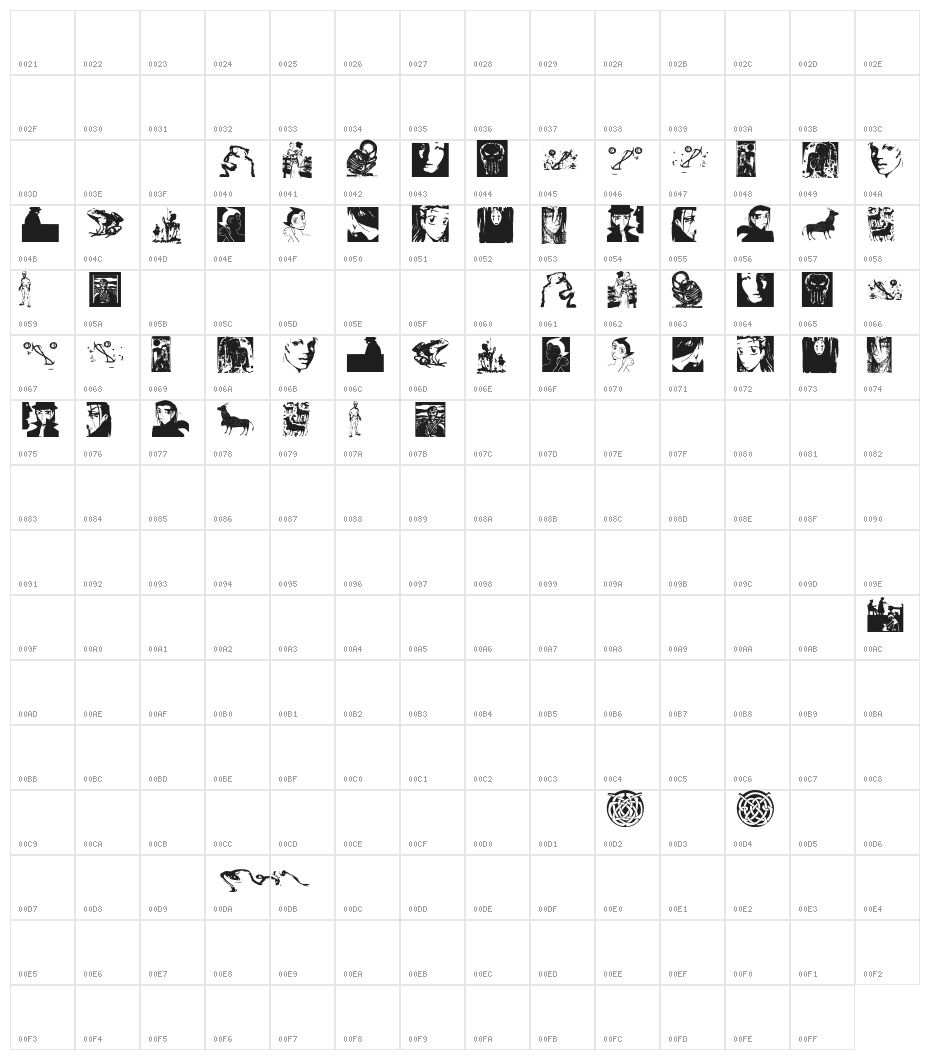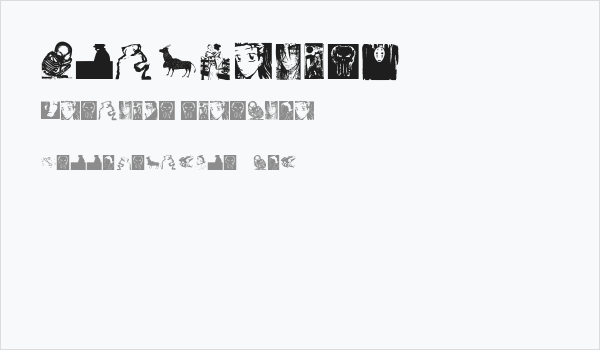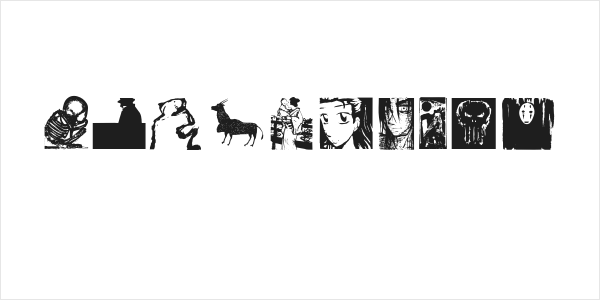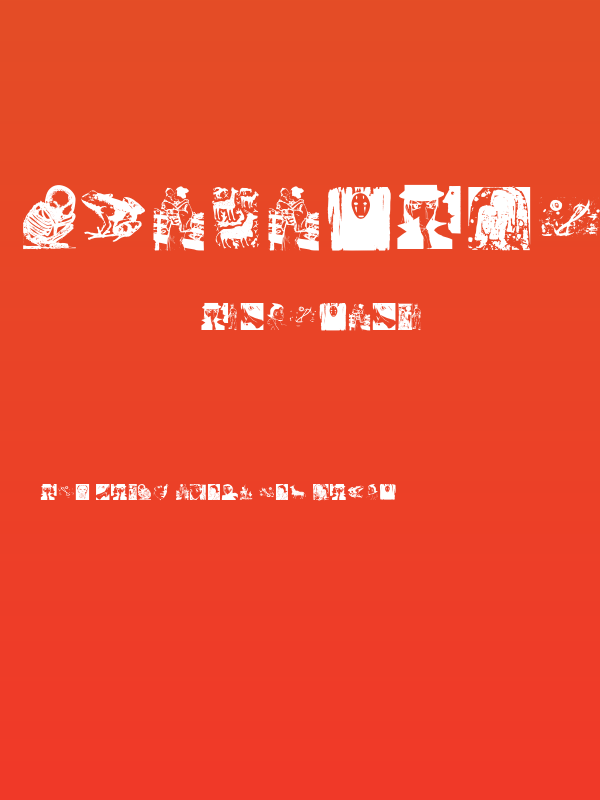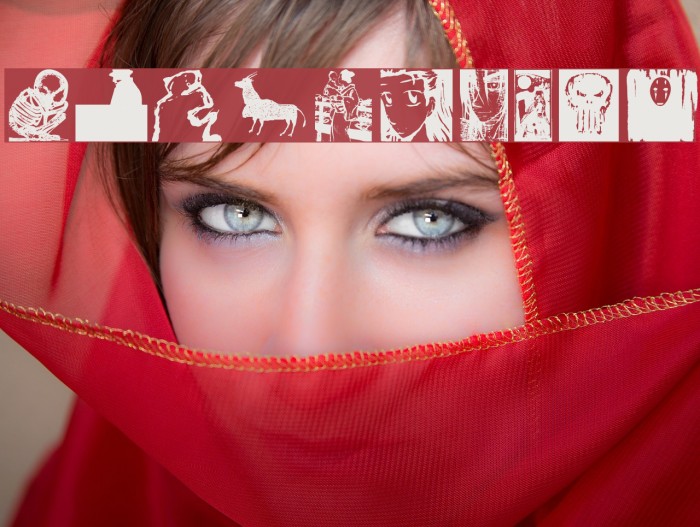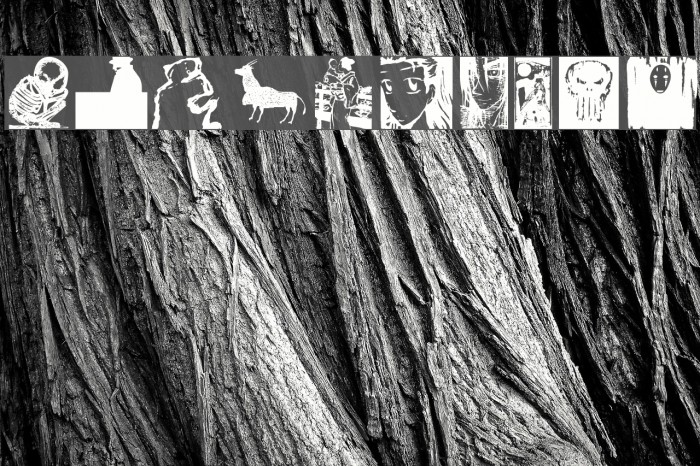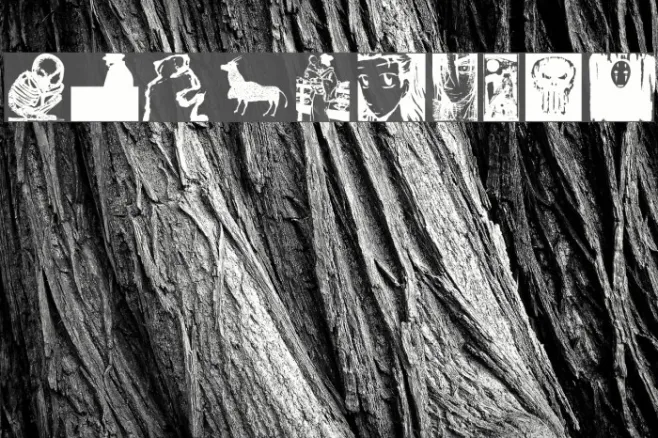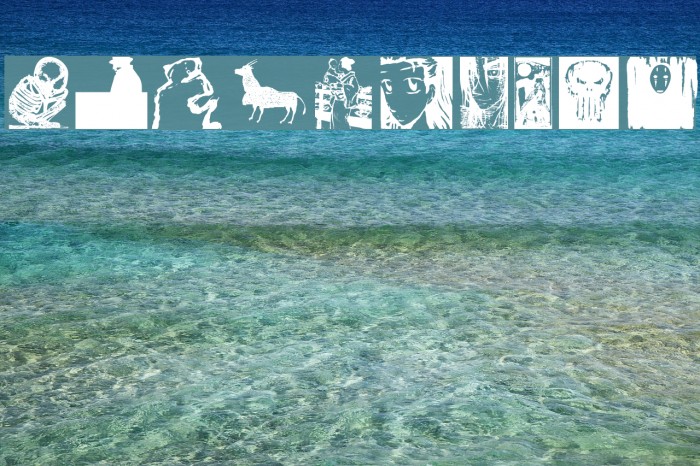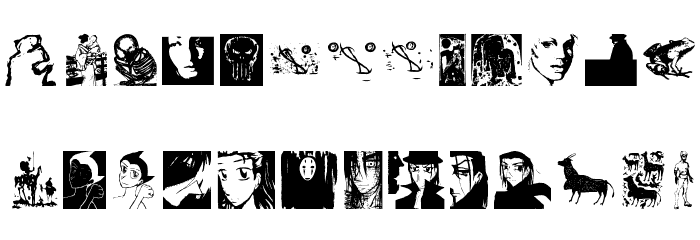
BlaxArties Font
BlaxArties Description
A highly decorative and illustrative font composed of detailed black-and-white graphic images, each character represented by a unique piece of art or scene rather than traditional letterforms.
| Overall Style | Decorative, Artistic, Graphic |
| Use Case | Logos, Posters, Artistic projects, Headlines |
| Proposed Projects | Album covers, posters, graphic novels, art exhibitions, creative branding, zines. |